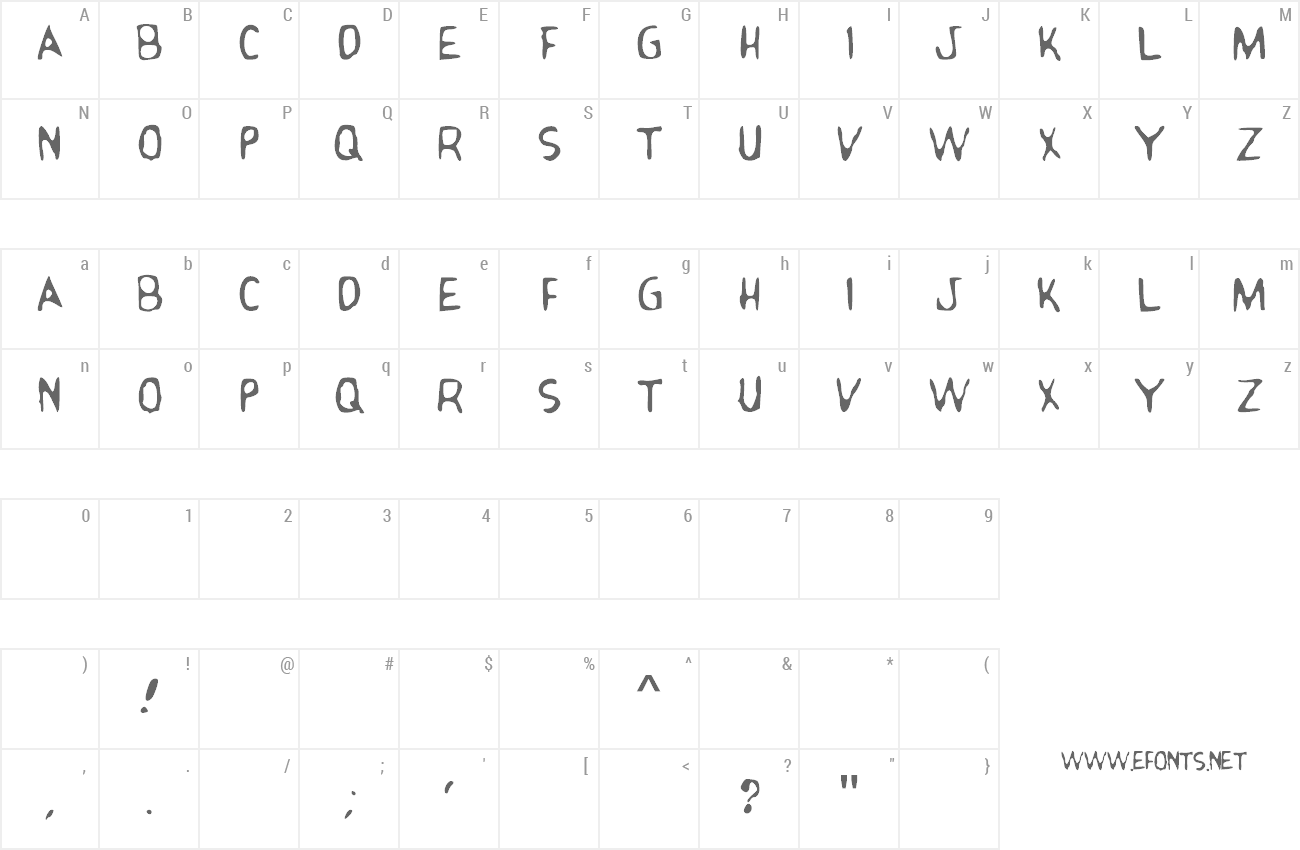
| Font name: | Classic Comics Club |
| A comic font that I created to mimic the style of lettering from old comic strips from the 30s like Flash Gordon and The Phantom. |